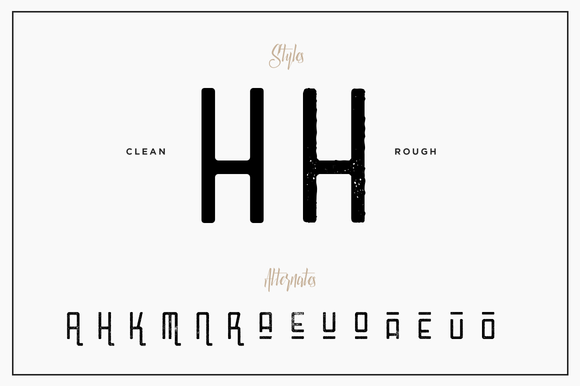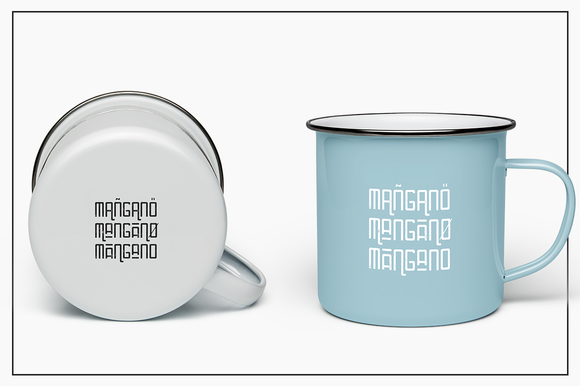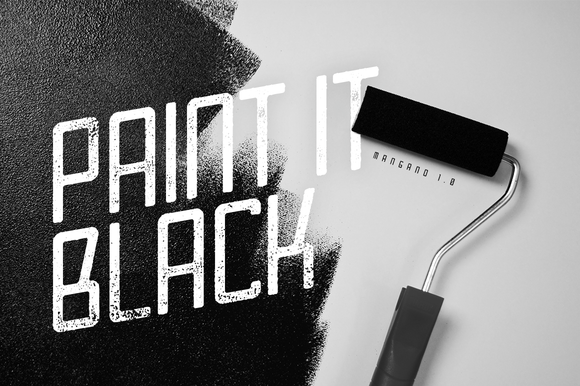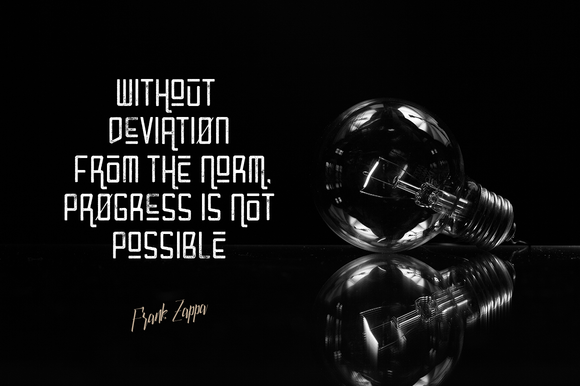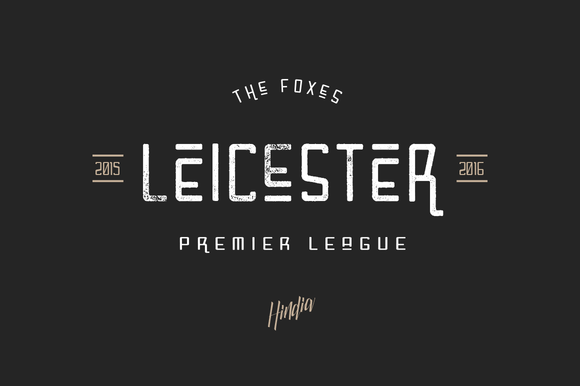
Introduction to Mangano Font
Mangano is a beautiful display typeface with multiple styles.
With this typeface you can give your design a clean or rough feeling It can be used for various purposes such as headings, logos, invitations, t-shirt designs, greeting cards, posters, labels, book covers, brochures and much more.
Key Features of Mangano Font